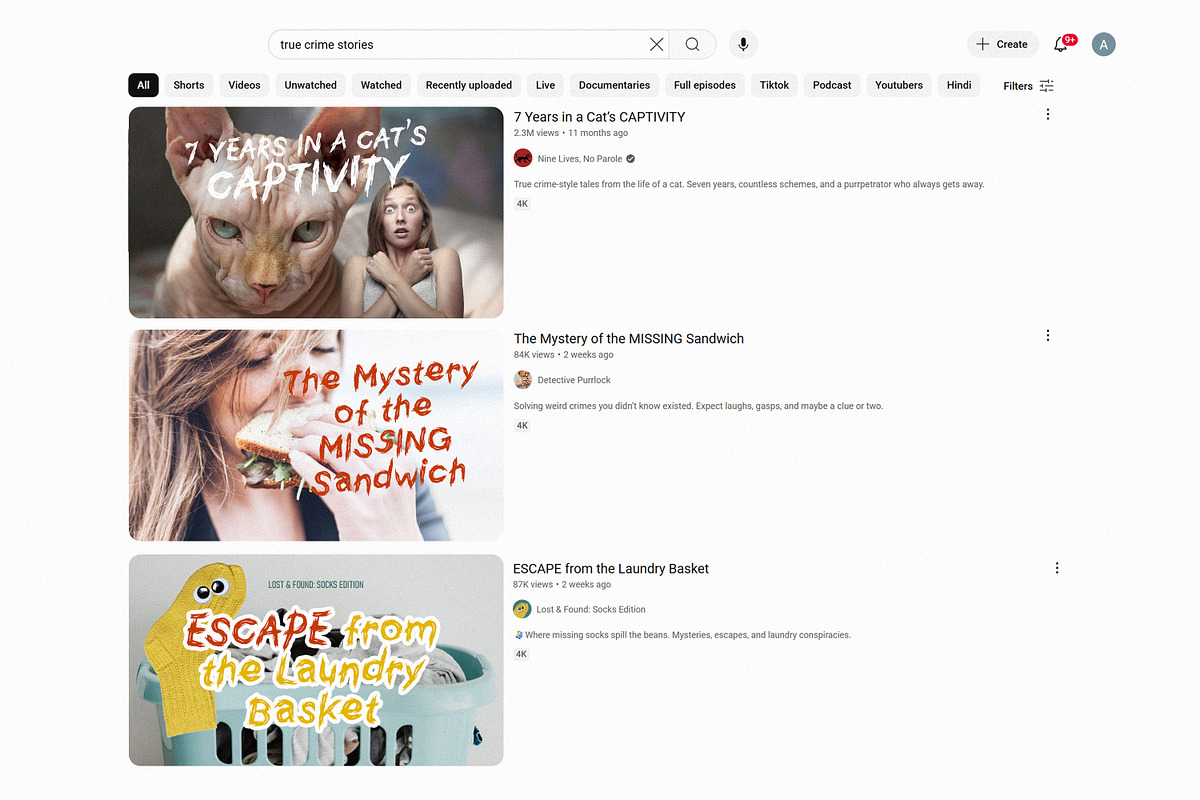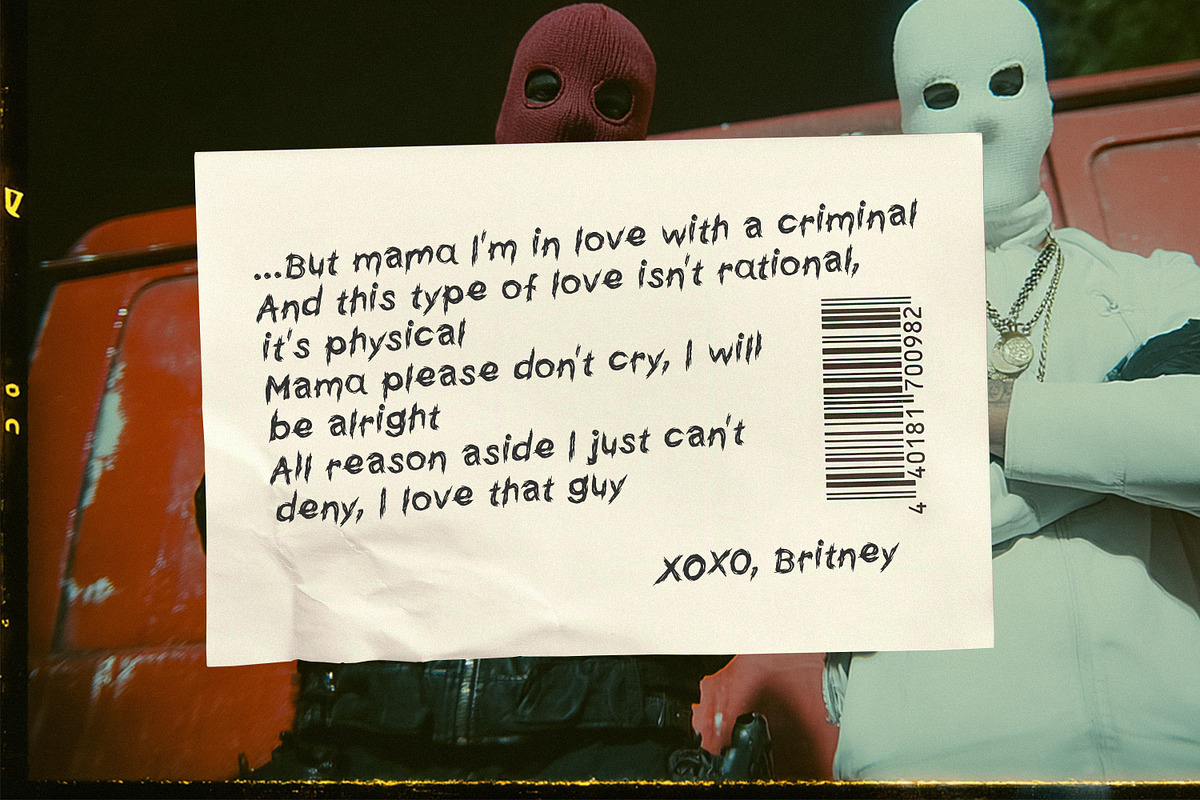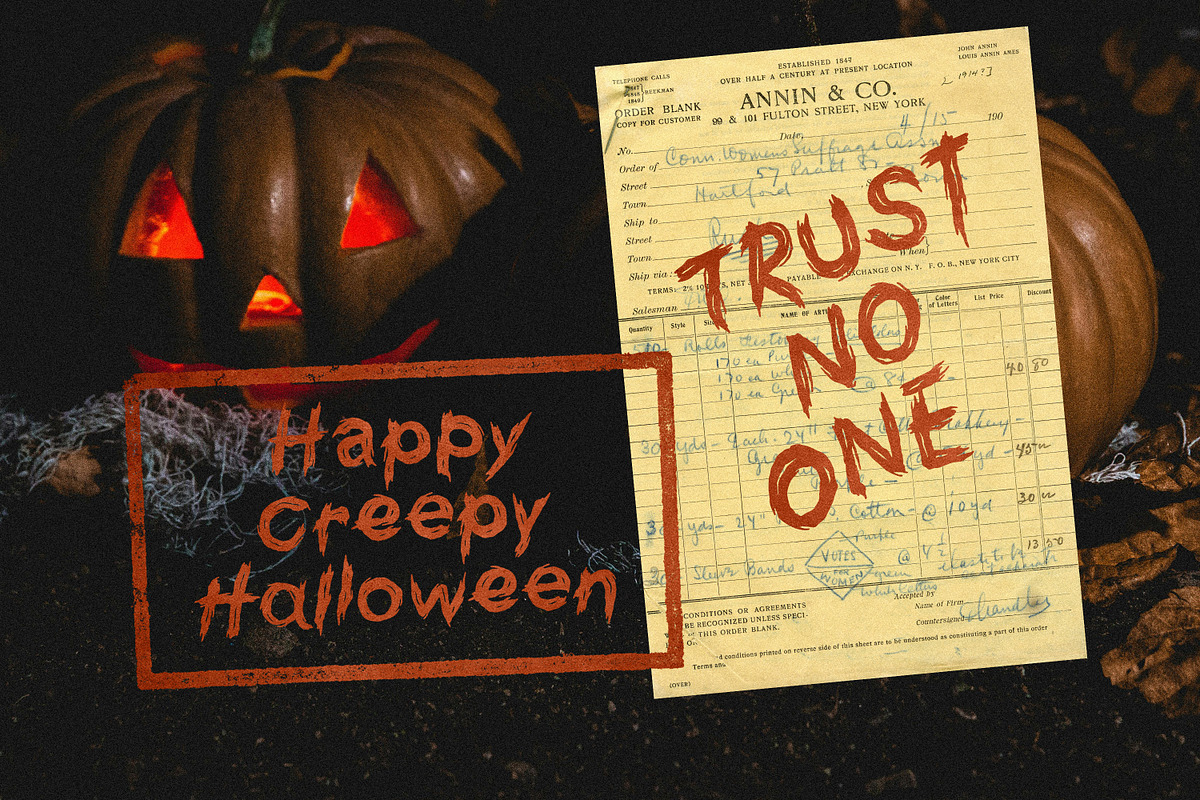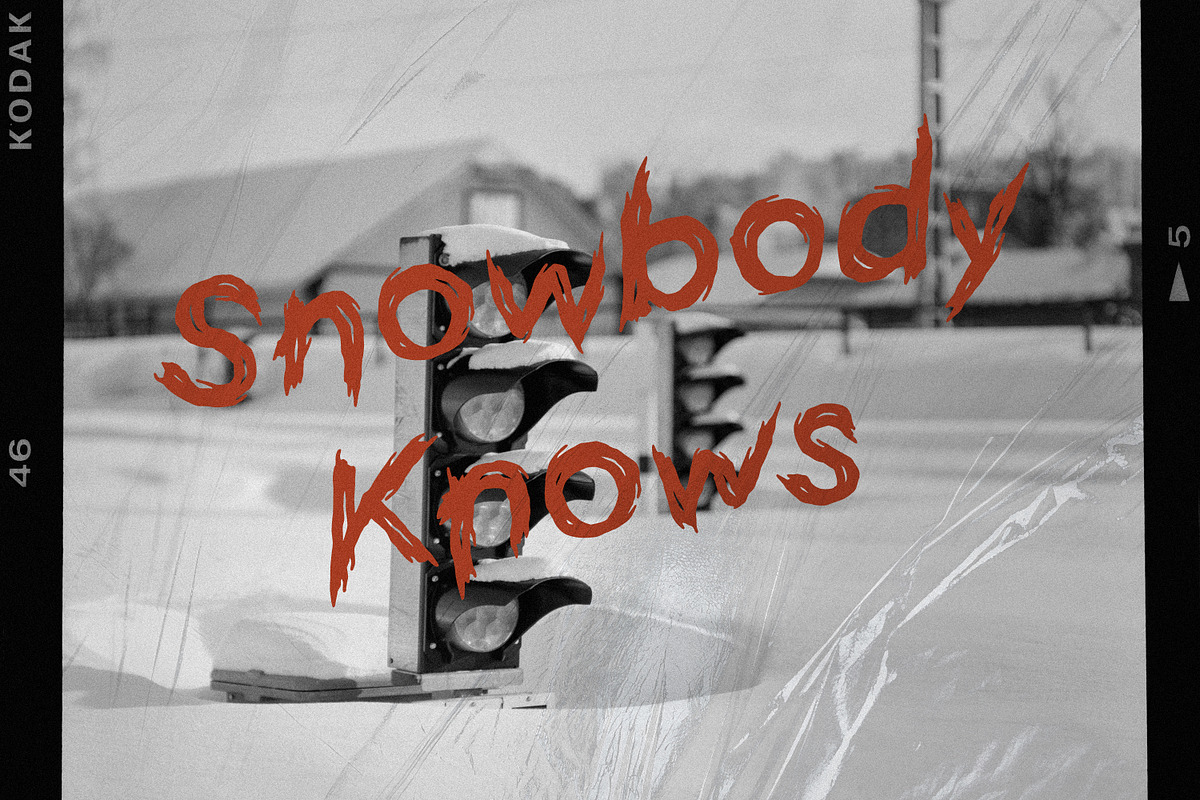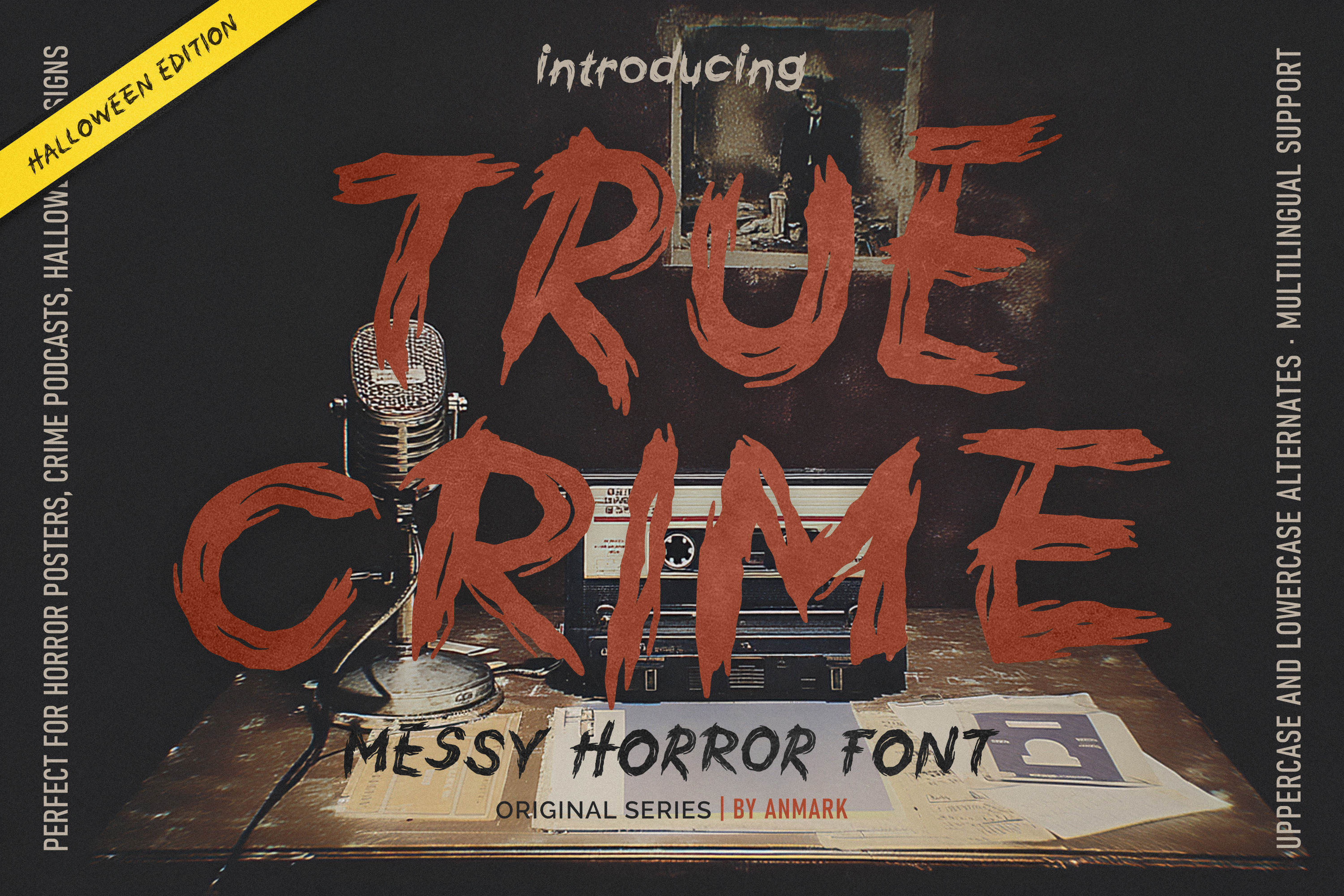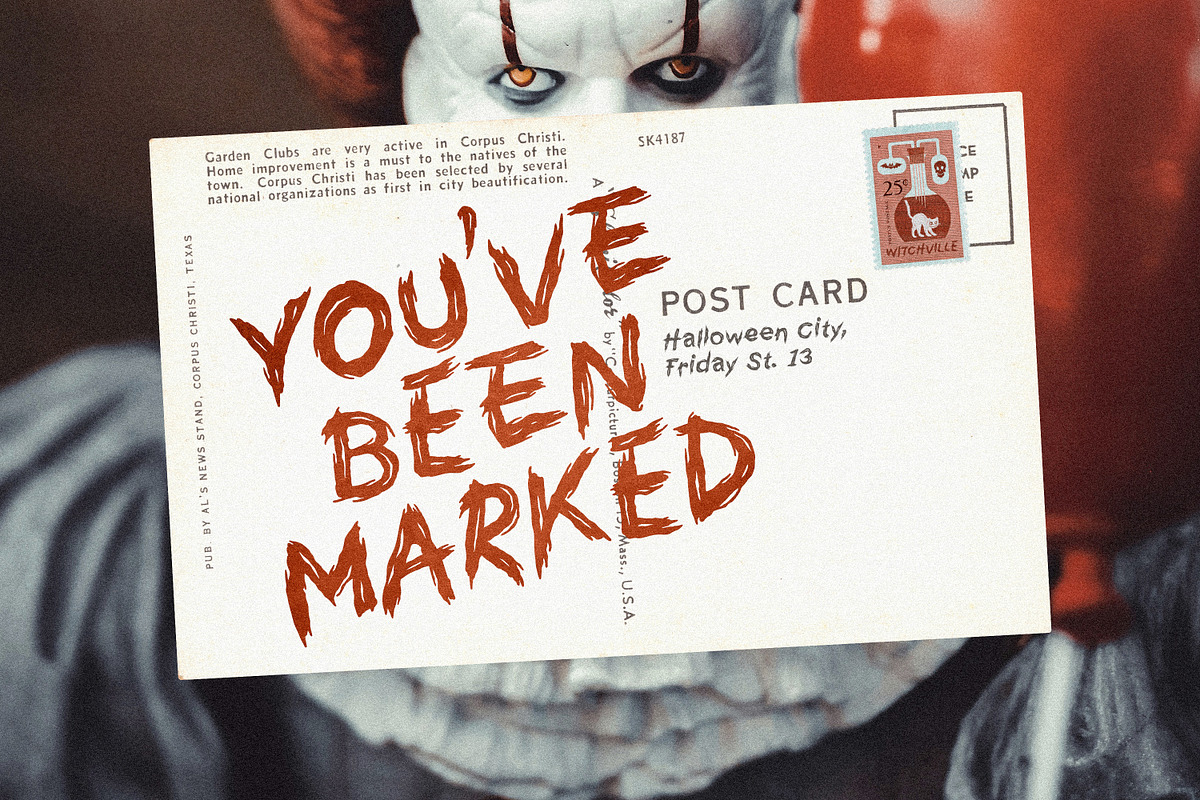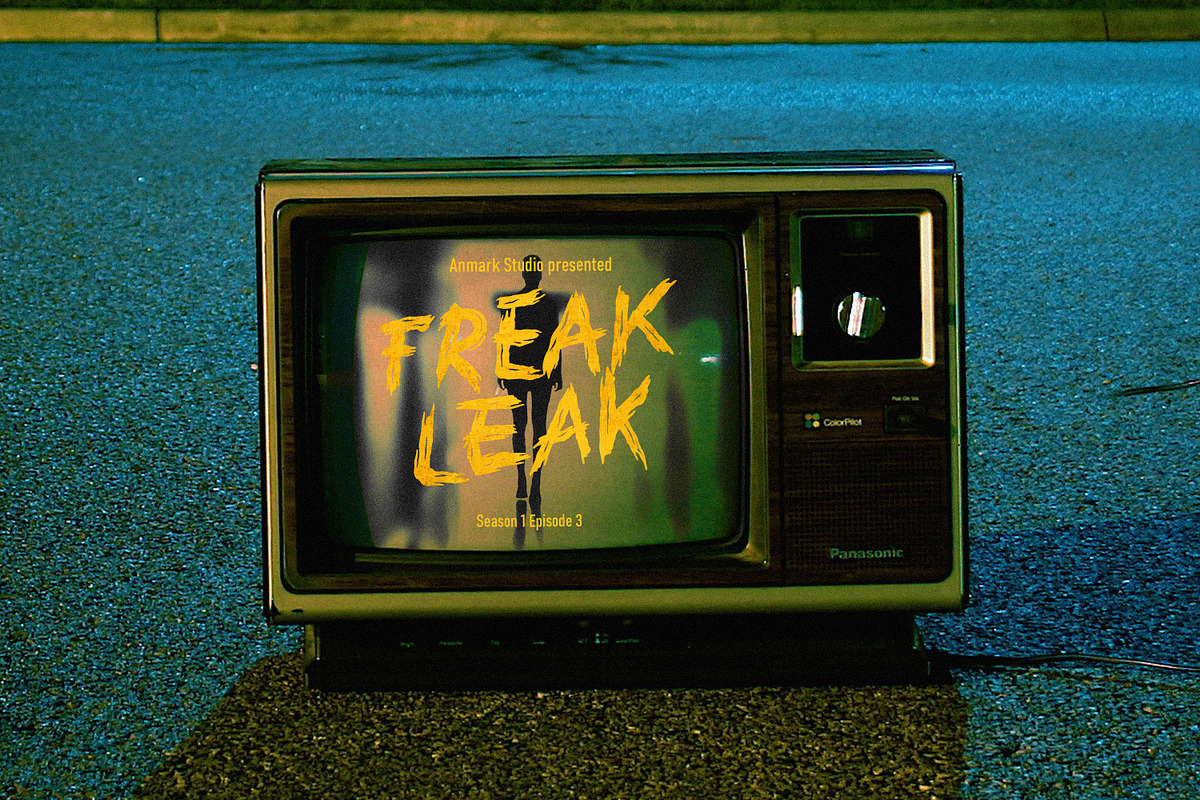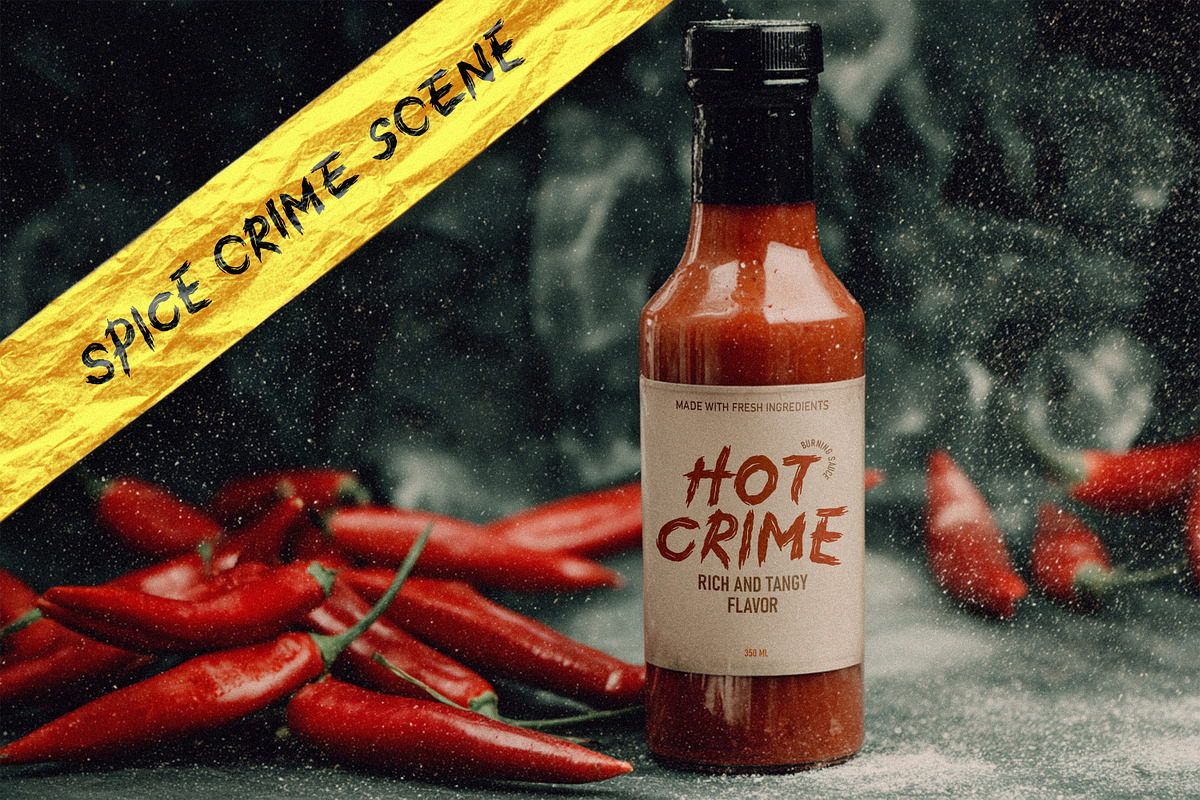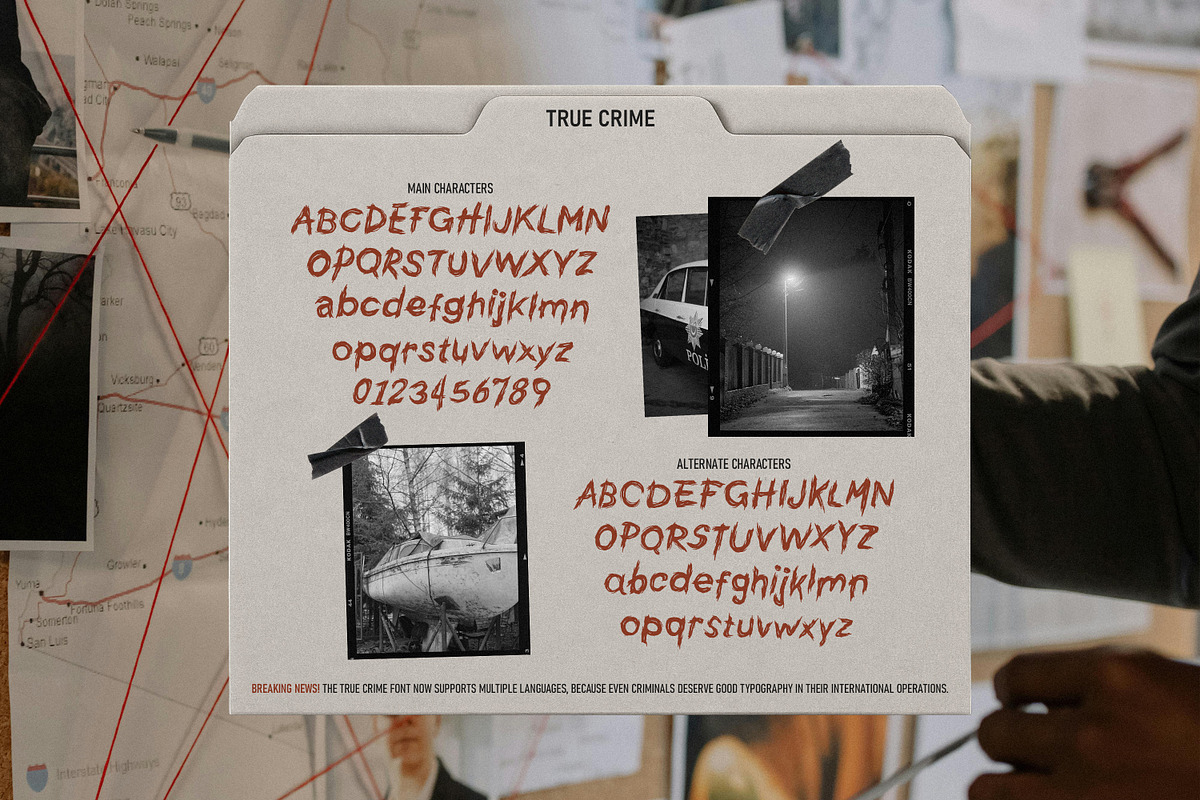
True Crime Rough Messy Horror Font
True Crime - Bold Horror Font with Uppercase & Lowercase Alternates, Multilingual Support
True Crime is a bold, gritty horror display font with a messy, chaotic texture that instantly conveys tension, mystery, and dark intrigue. Featuring uppercase and lowercase alternates, this versatile typeface allows for unique, dynamic typography. With multilingual support, it works for designers worldwide creating eerie, suspenseful designs.
Perfect for true crime book covers, thriller and horror movie posters, Halloween party graphics, mystery podcasts, dark branding, suspenseful social media posts, and other digital or print projects requiring a dramatic, edgy font. True Crime is an ideal choice for thriller, horror, mystery, and crime-themed designs.